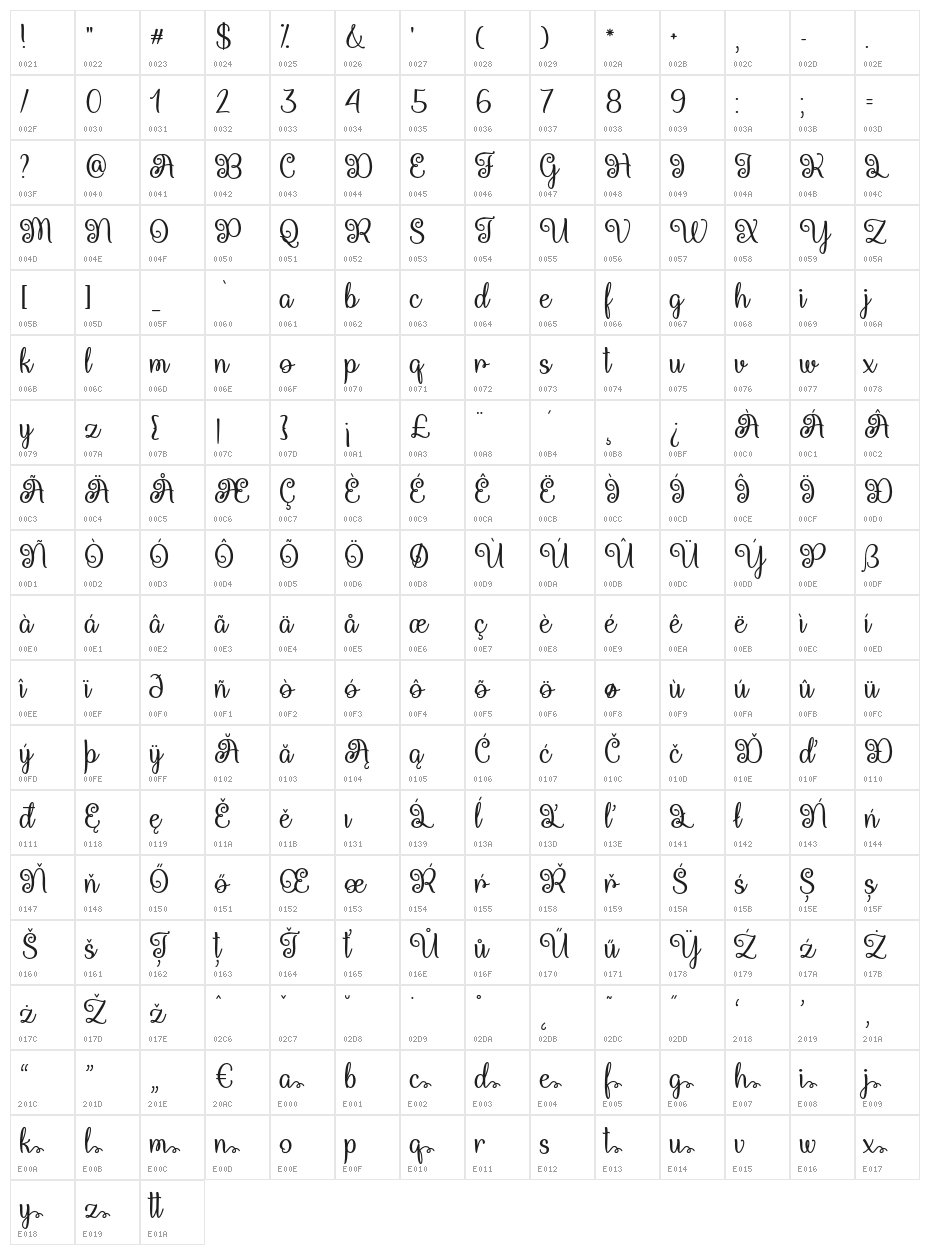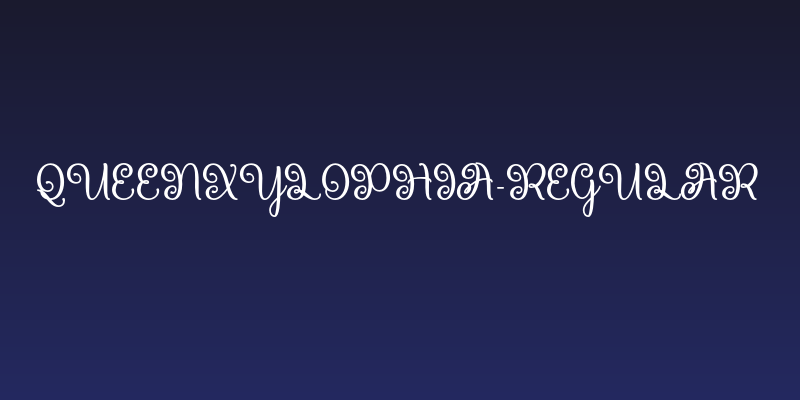
QueenXylophia-Regular Font
QueenXylophia-Regular Description
This font features an elegant and whimsical design with a playful yet sophisticated flair. The uppercase letters are characterized by their intricate loops and swirls, giving them a decorative and ornate appearance. The lowercase letters maintain a consistent style with smooth curves and a flowing script-like quality. Numbers and special characters are designed to match the overall aesthetic, ensuring a cohesive look across all text elements. The font's unique style makes it suitable for creative and artistic projects, where a touch of elegance and personality is desired.
| Proposed Projects | Ideal for wedding invitations, greeting cards, branding, and artistic projects requiring a touch of elegance. |